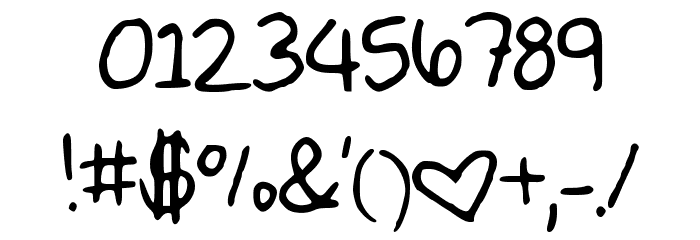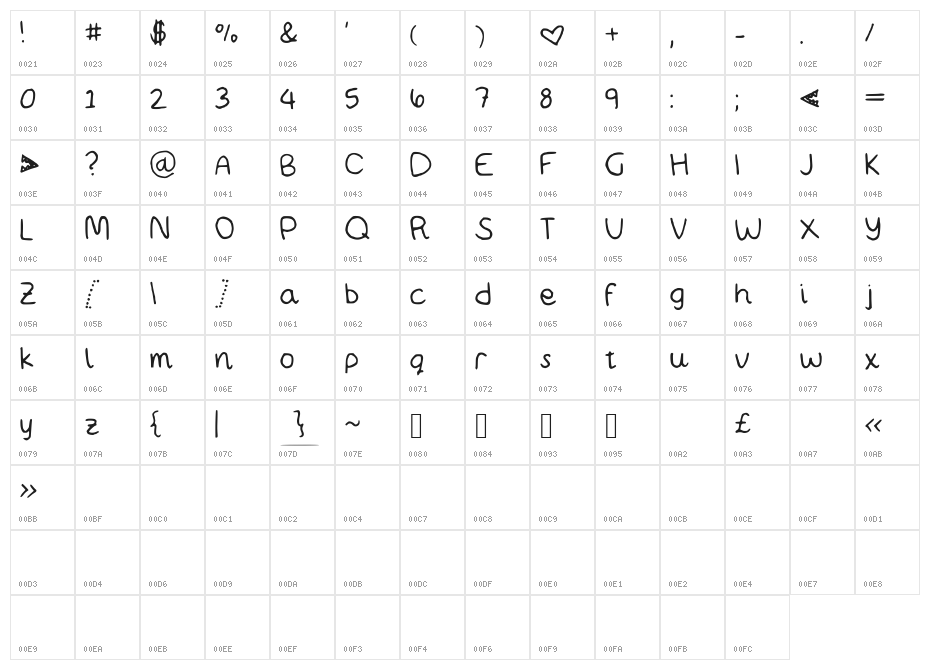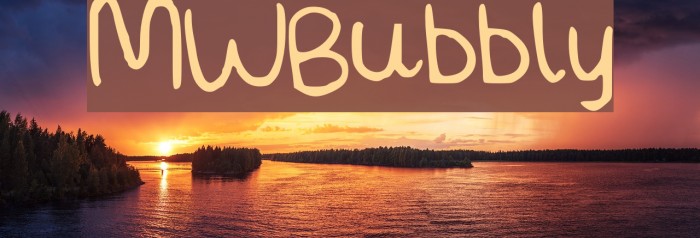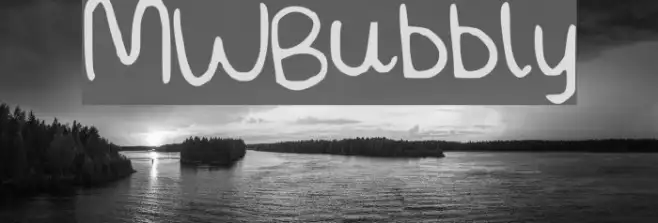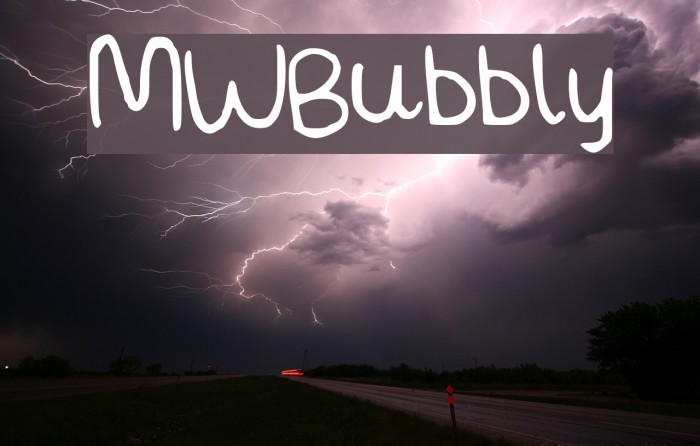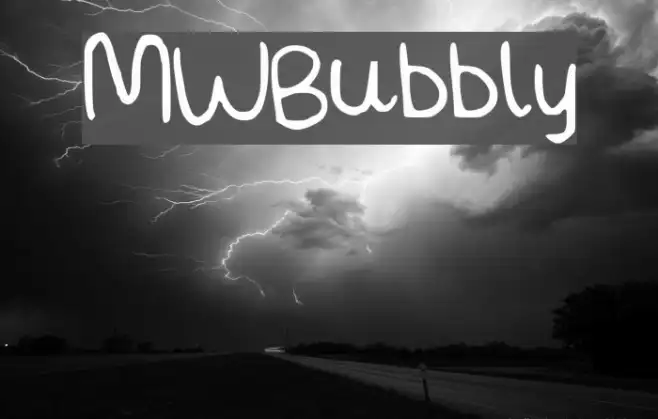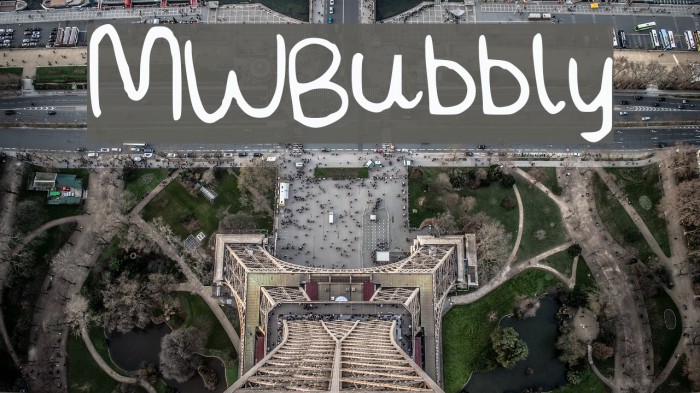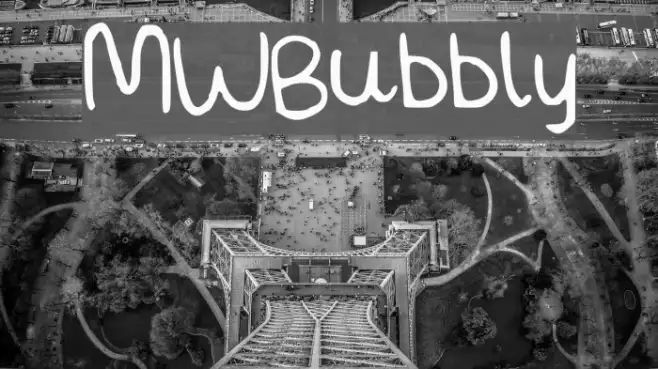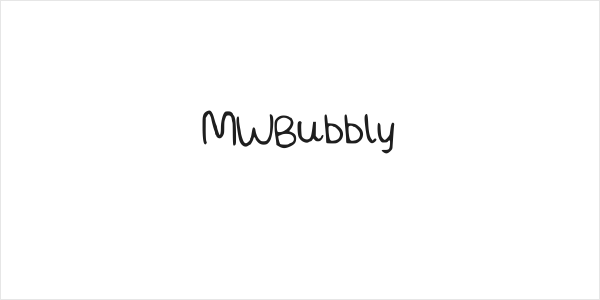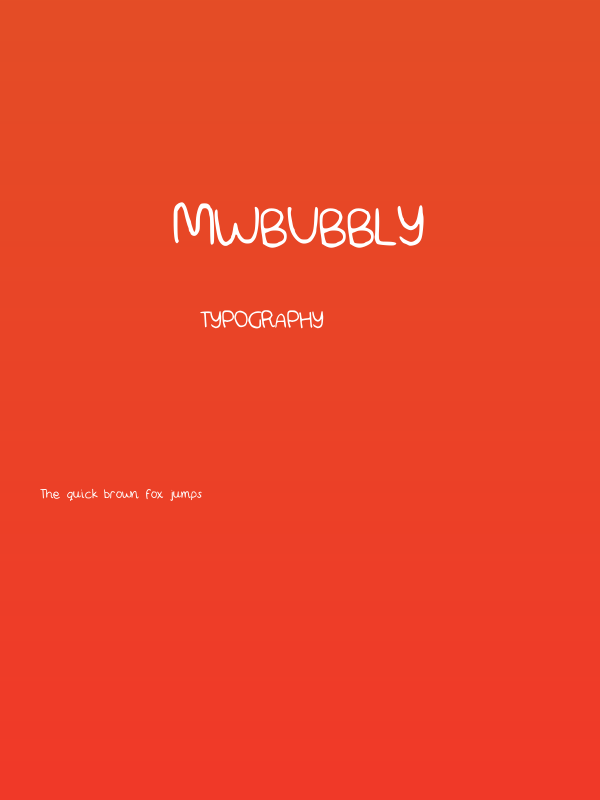
MWBubbly Font
MWBubbly Description
This playful and whimsical font features rounded, bubbly characters that give off a friendly and approachable vibe. The letters are slightly irregular, adding a hand-drawn feel that enhances its charm. The strokes are consistent in width, providing a uniform appearance while maintaining a casual and informal style. The font includes a full set of uppercase and lowercase letters, numerals, and a variety of special characters, making it versatile for different uses. Its unique style is perfect for projects that require a touch of fun and creativity.
Overall StylePlayful
Use CaseHeadlines, Logos, Informal Text
Proposed ProjectsIdeal for children's books, playful branding, greeting cards, and casual invitations.